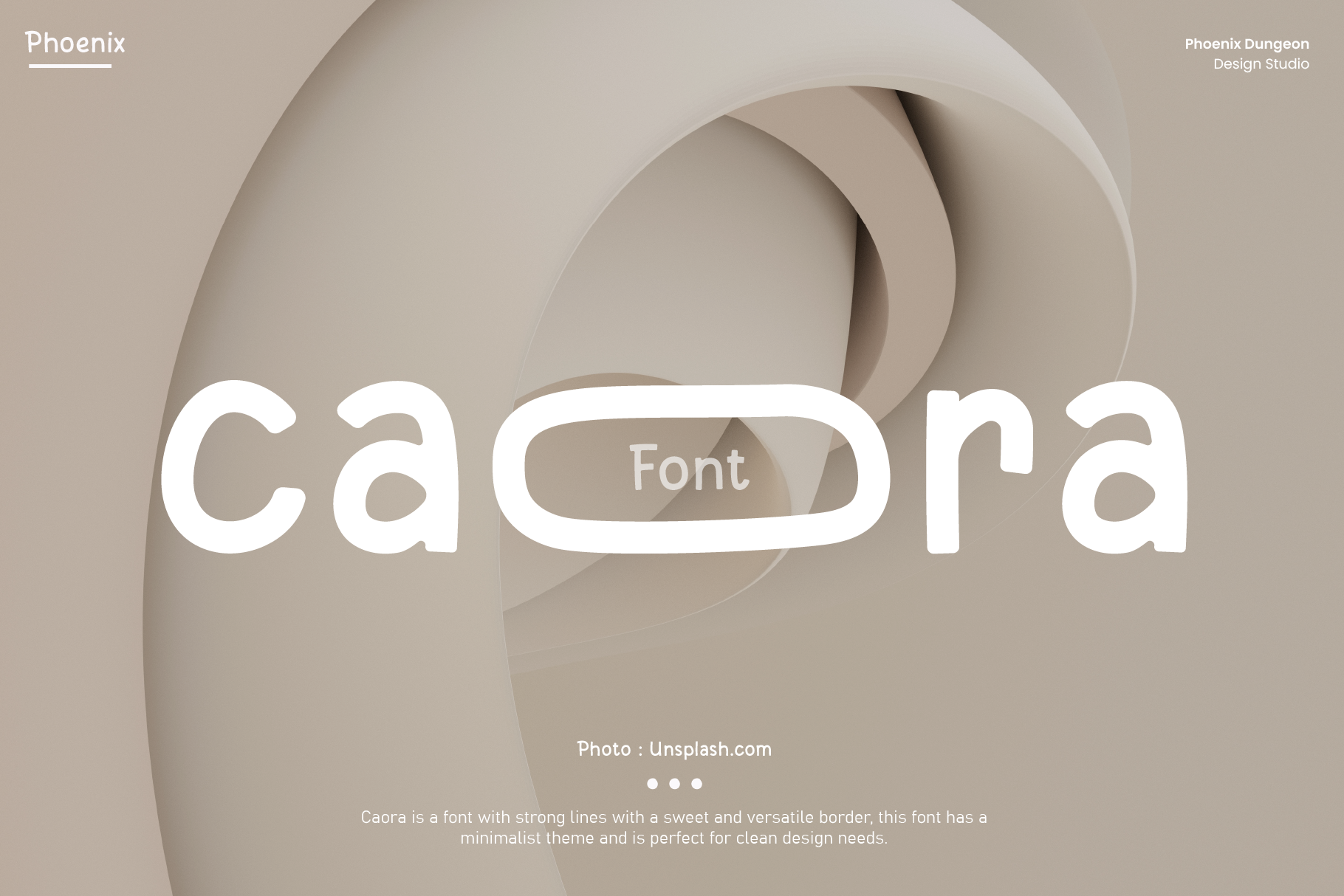
Caora Font
Caora is a font with strong lines with a sweet and versatile border, this font has a minimalist theme and is perfect for clean design needs.